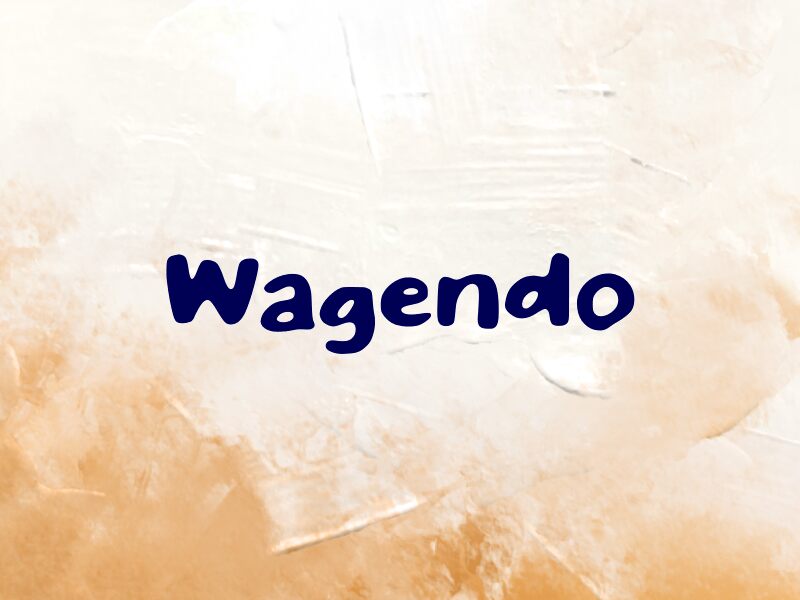
Wagendo font by wepfont.com is a free comic font with a rounded and casual appearance. This approachable design features handwritten characters that combine modern and informal elements for a unique and friendly vibe. Wagendo is organic and perfect for both digital and print projects that seek to be more fun and creative.
Use this font for comic books, games, greeting cards, and all sorts of branding material and packaging projects. Other creative applications include stationery, social media posts, and many more casual designs.